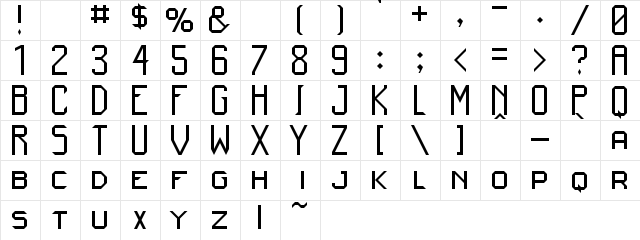
Kinishinai NBP Regular
| Designer | Nate Halley |
Kinishinai NBP is a composed and adaptable typeface that performs quietly and consistently across a wide range of design contexts.